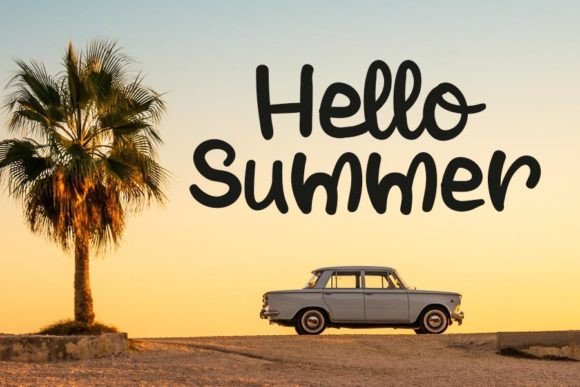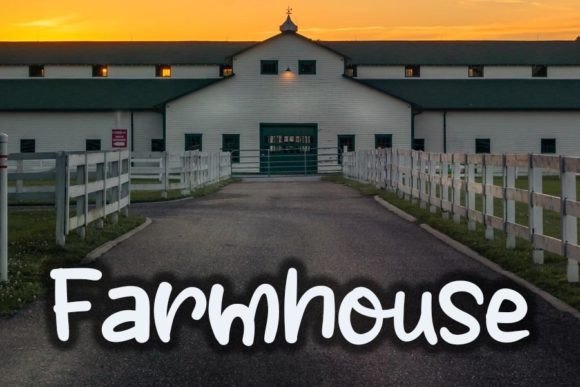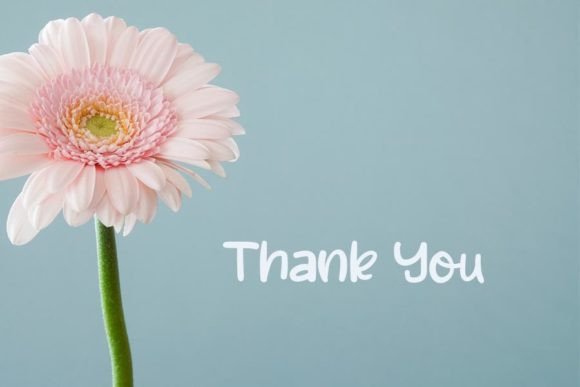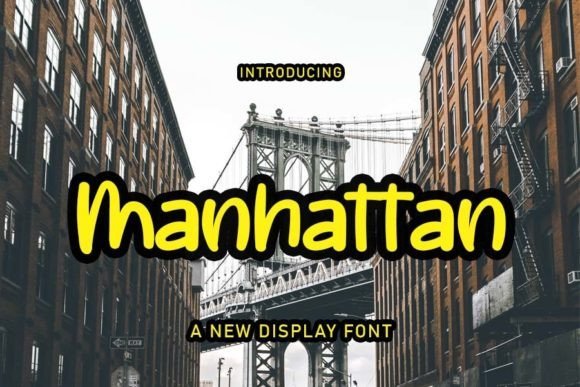
Introduction to Manhattan Font
Manhattan is a fun and friendly handwritten font.
Use it to turn any design idea into a true standout Get inspired by its unique charm and create lovely designs.
Key Features of Manhattan Font